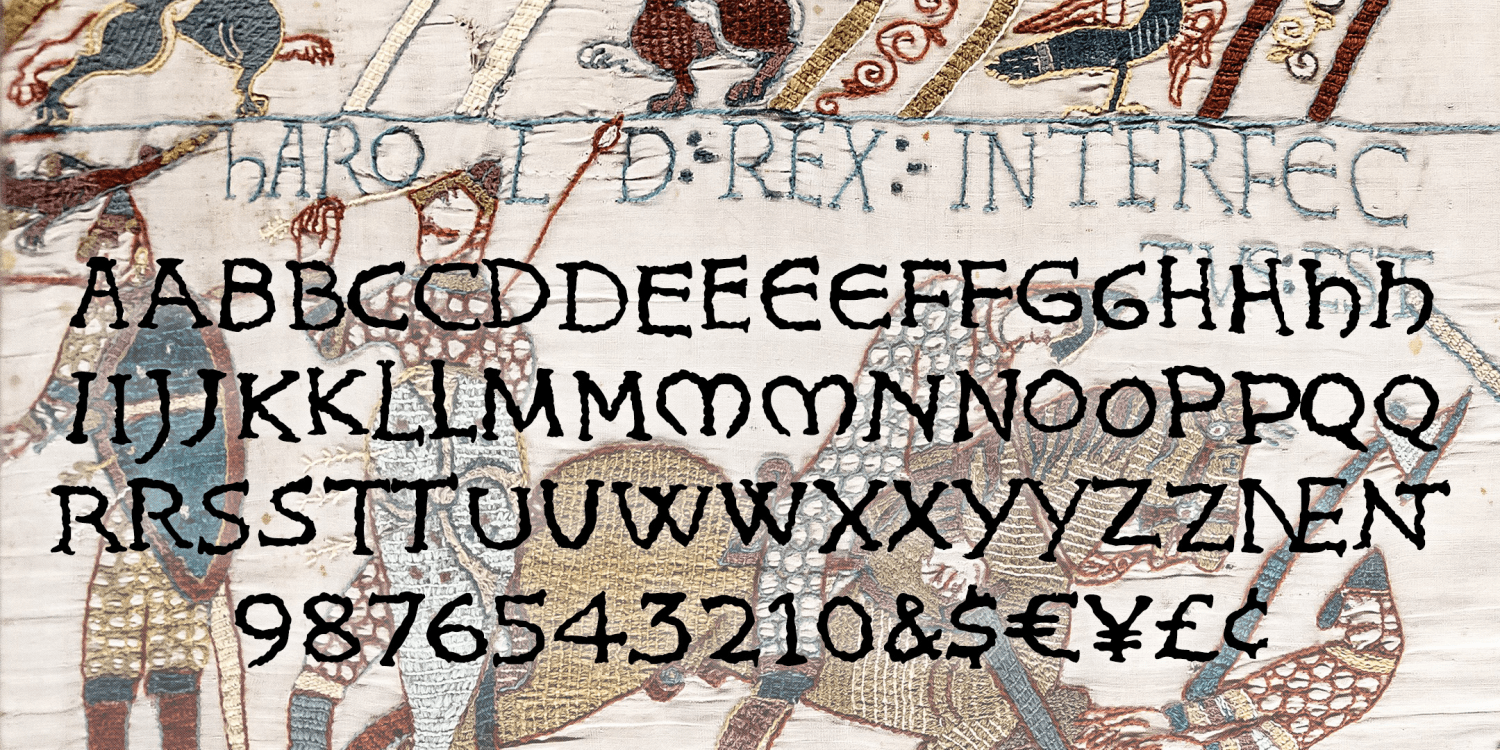
King Harold
KING HAROLD looks like hand-embroidered lettering and was inspired by the Bayeux Tapestry. To get it just right, I drew, embroidered, and scanned all the characters. Version 1.5 makes use of Opentype features for alternate letter forms and ligatures, an expanded character set and improved spacing and kerning.
The Bayeux Tapestry was made c.1073-83 and records King Harold's adventures and loss at the Battle of Hastings to William the Conqueror, with a special appearance by Halley's Comet. It measures 230 feet long (69 meters) and is one of the great examples of Romanesque art.